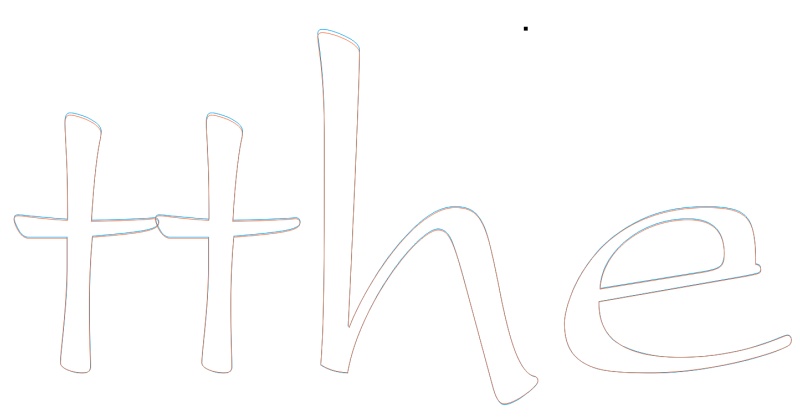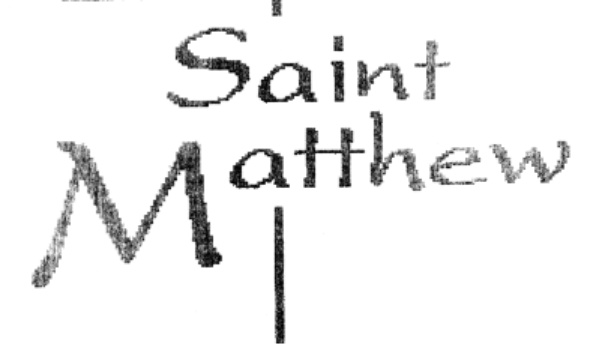
For the life of me, I can't seem to find this font on my system! Thought it was Calligrapher, but its not.
Hmmm, now that I'm looking at it a bit more closely, its still not quite exact, the top of the "t" and "h" is different, although I'm not sure if the original sample should have had it but is deteriorated from being faxed to me.
Guess I'll submit it with Snippet and see if its acceptable as-is, and if someone does recognize this one, I'll change it out before I do the banner for the client.
Oye! Don't you just hate it when fonts have multiple names? Blue outline is Snippet, red outline is Present.
And on top of that, Kudasai is just a skewed version of one of the above! Whoever put that font together though, they really made the kerning for caps weird! The "M" is justified to the left edge, instead of it dropping below the line, and the "S" is scrunched up, so it looks out of place with the rest of the letters.